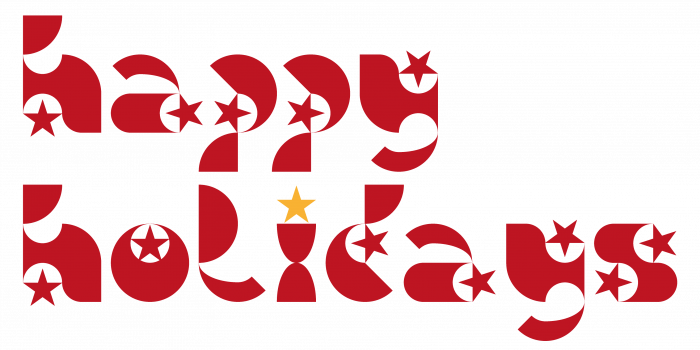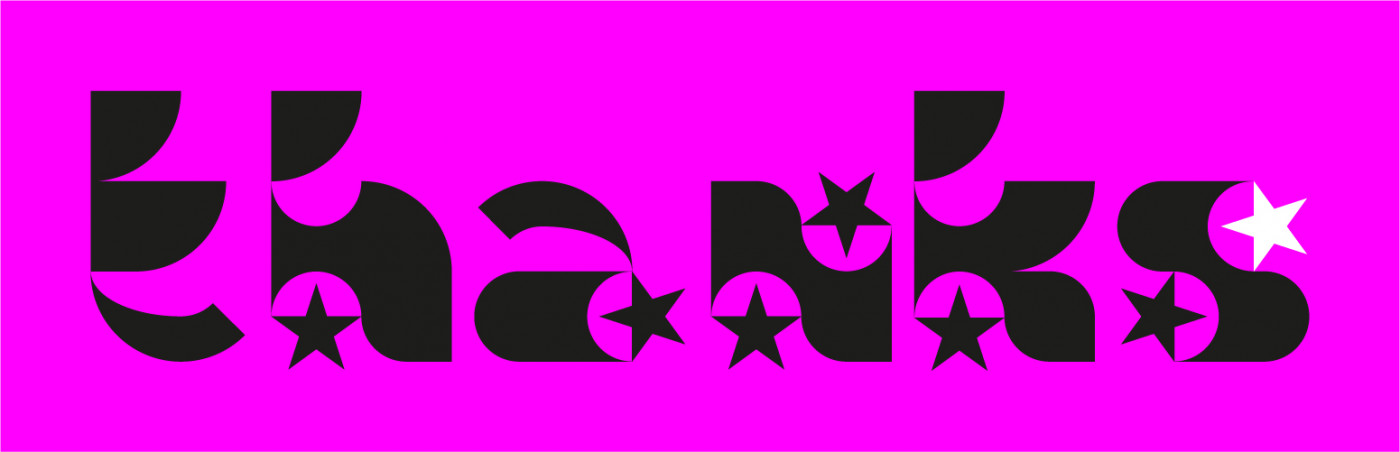
POV:Looks LetterStar! On the Night and brillant Stars in the WORLD!
How fun! Dear compañero: I wish you were here more often to spur me on and that my fonts were not as dull as they are now! 10/10 + ❤️!
Is this for Christmas? The stars are very pretty. 10/10